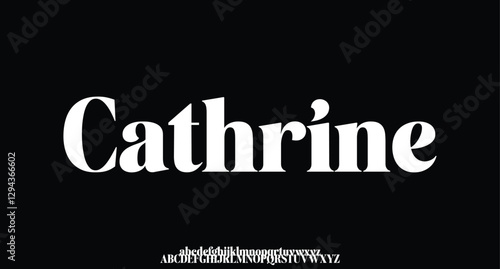
Cathrine, elegant modern alphabet letters font logo. logo alphabet. Minimal modern urban fonts for logo, brand etc. Typography typeface uppercase lowercase and number. vector illustration